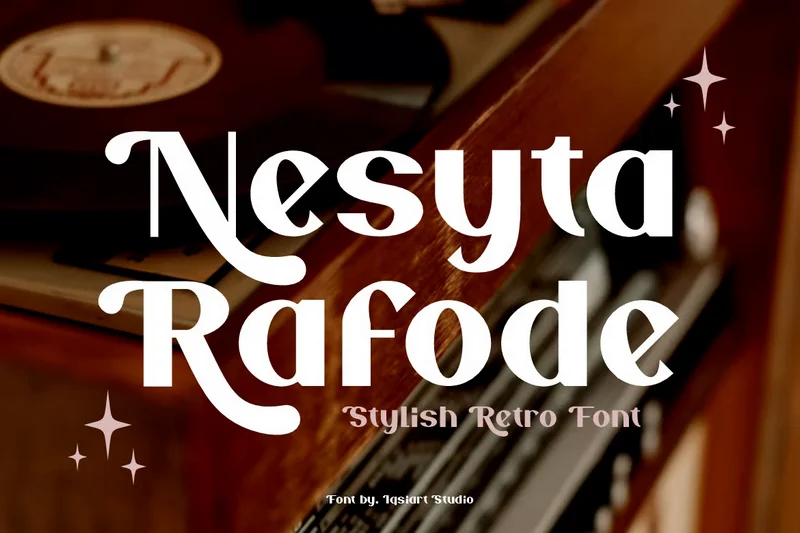
Nesyta Rafode – Stylish Retro Font
Nesyta Rafode Font is a best and authentic display font. This font can be used for your various needs. We provide various themes and font styles. visit our profile to get a wide variety of themes and different font styles you need.